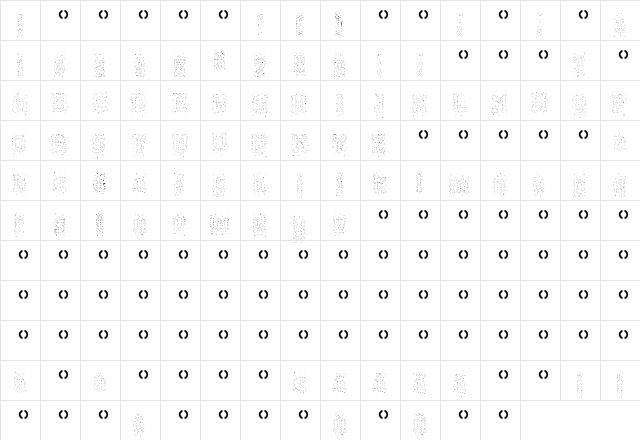
1BubbleBath Light
Design Context for 1BubbleBath Typeface
1BubbleBath has an approachable, lighthearted character — its loose, expressive forms are well-suited to children's content, casual branding, and fun-first design.
Great for children's books, toy packaging, family event branding, and casual consumer-facing design.
Font Pairing: Pairs well with a rounded or humanist sans for body copy, maintaining the friendly tone without relying on 1BubbleBath to carry extended reading.
Pro Tip: Avoid using 1BubbleBath for long passages of text — it works best for headlines, labels, and short calls to action.